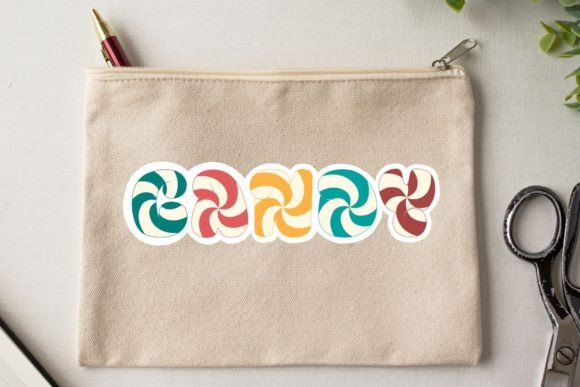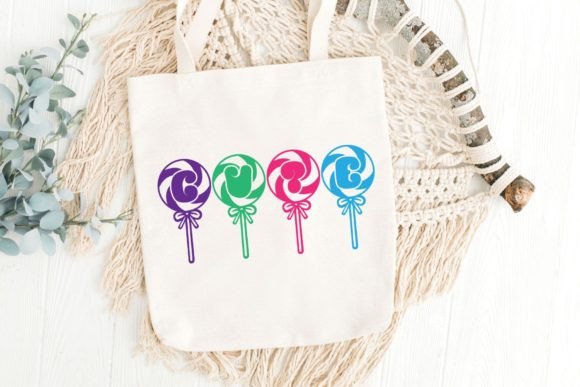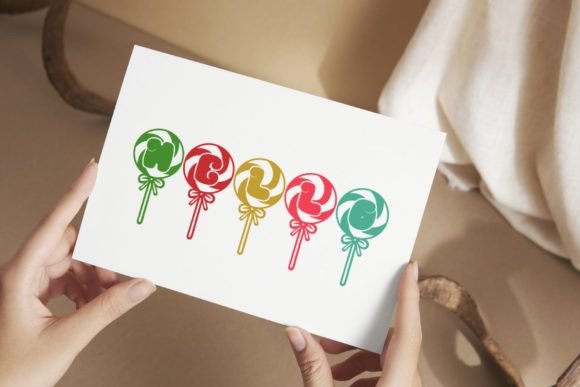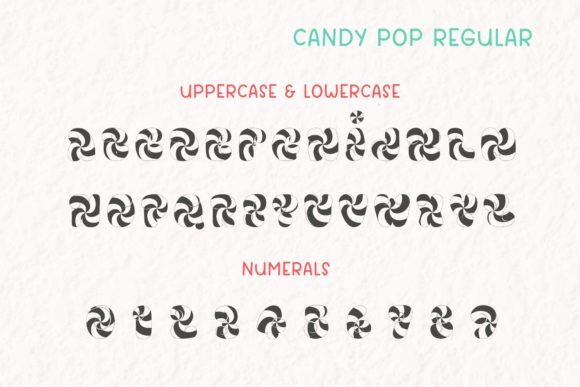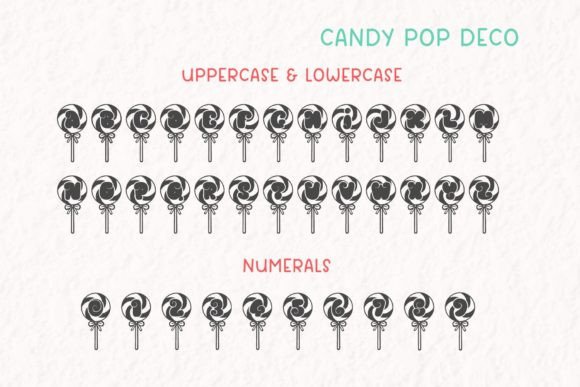
Candy Pop Duo Font: Add a Sweet Touch to Your Designs
Are you looking for a font that can add a playful and whimsical touch to your designs? Look no further than the Candy Pop Duo Font! This delightful font duo features bold, swirly designs that mimic the look of candy and lollipops, making it perfect for creative projects that require a sweet and cheerful vibe.
What is Candy Pop Duo Font?
Candy Pop Duo Font is a playful decorative font duo that is designed to bring a touch of fun and whimsy to your designs. The font features a delightful combination of bold, swirly designs that mimic the look of candy and lollipops. The font exudes a lively and joyful character, making it perfect for creative projects that require a sweet and cheerful vibe.
Key Features of Candy Pop Duo Font
- Playful and Whimsical Design: The Candy Pop Duo Font features a playful and whimsical design that is perfect for creative projects that require a sweet and cheerful vibe.
- Bold and Swirly Designs: The font features bold, swirly designs that mimic the look of candy and lollipops.
- Vibrant Colors: The font comes in vibrant colors that add a lively and joyful character to any design.
- Candy-Inspired Shapes: The font features charming, candy-inspired shapes that add a touch of fun and whimsy to any design.
Candy Pop Duo Font is perfect for designers and crafters who are looking to add a sweet and cheerful touch to their designs. The font is ideal for a variety of creative projects, including:
- Party Invitations: Add a playful and whimsical touch to your party invitations with the Candy Pop Duo Font.
- Crafting Projects: Use the font to add a sweet and cheerful touch to your crafting projects, such as scrapbooking and card making.
- Digital Art: The font is perfect for digital art projects that require a playful and whimsical touch.
- Branding and Packaging: Use the font to add a touch of fun and whimsy to your branding and packaging designs.
Tips for Using Candy Pop Duo Font
- Use it as a Title Font: Use the Candy Pop Duo Font as a title font to add a playful and whimsical touch to your designs.
- Pair it with Other Fonts: Pair the font with other fonts to create a unique and interesting design.
- Add Graphics and Illustrations: Add graphics and illustrations to your design to make it more visually appealing.
In conclusion, the Candy Pop Duo Font is a playful and whimsical font duo that is perfect for designers and crafters who are looking to add a sweet and cheerful touch to their designs. With its bold, swirly designs and vibrant colors, the font is ideal for a variety of creative projects. Whether you’re working on a party invitation, crafting project, digital art project, or branding and packaging design, the Candy Pop Duo Font is sure to add a lively and joyful character to your design.